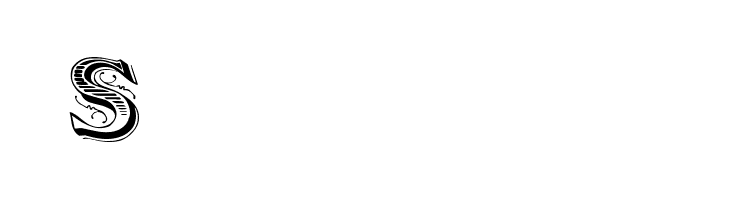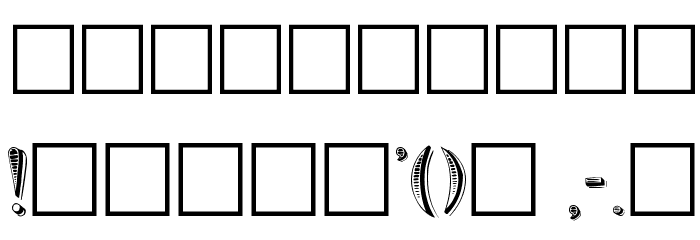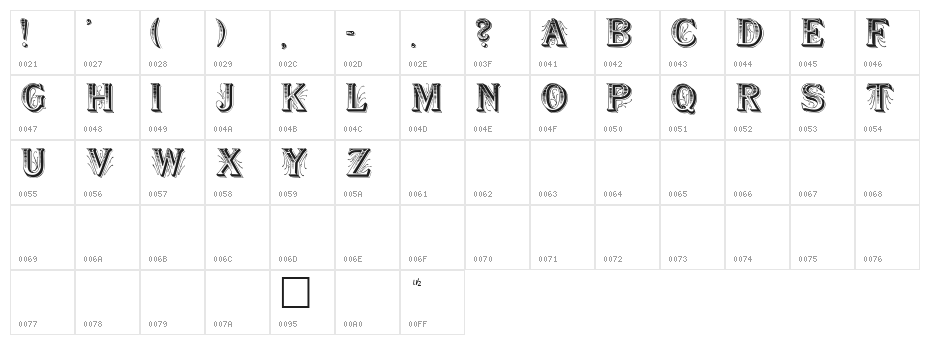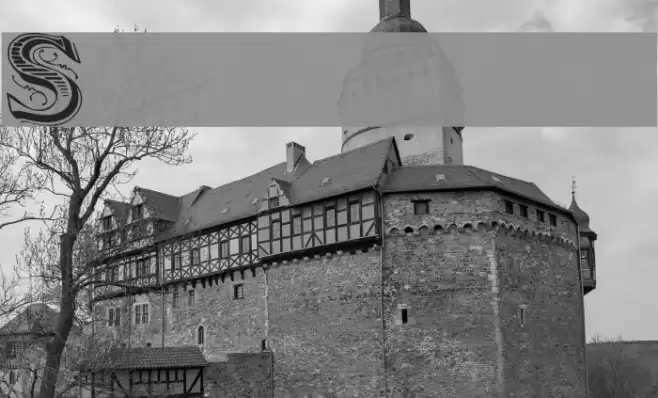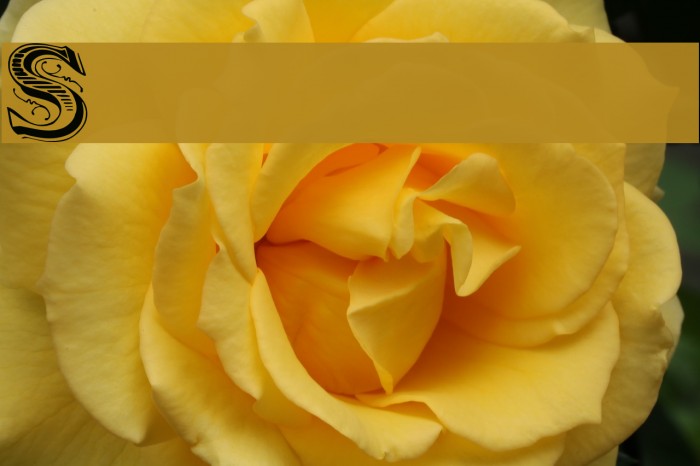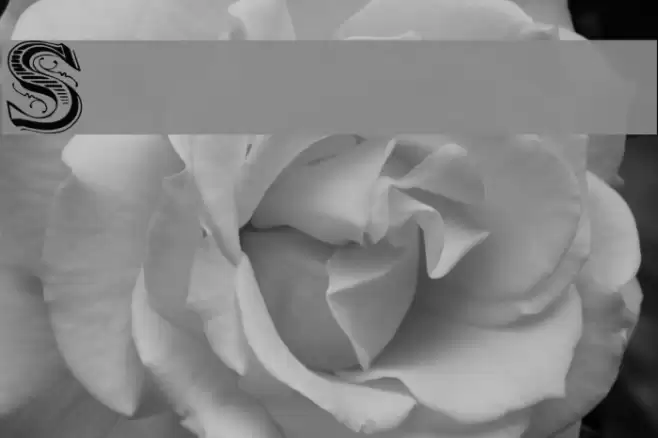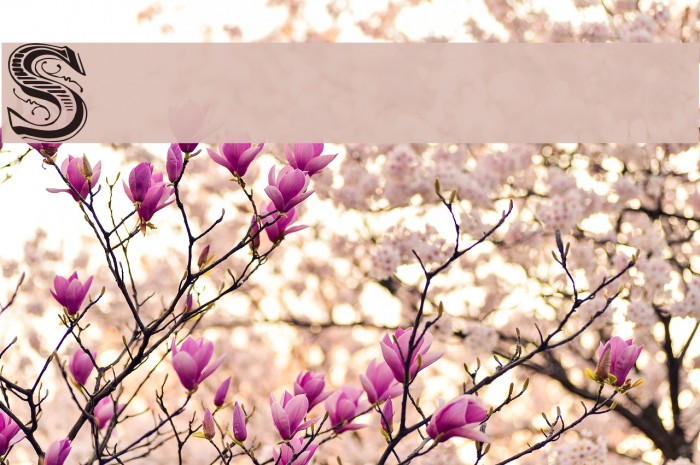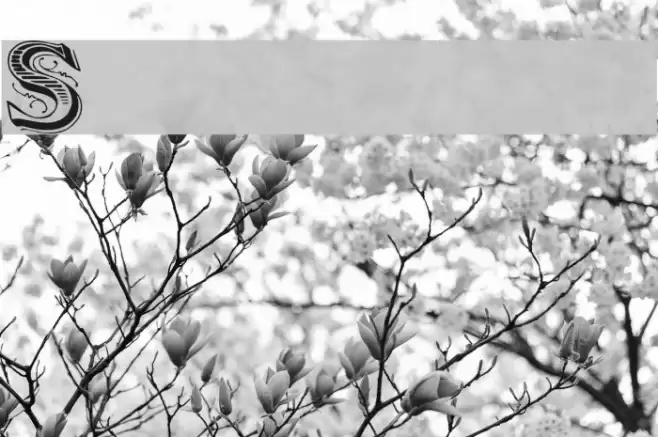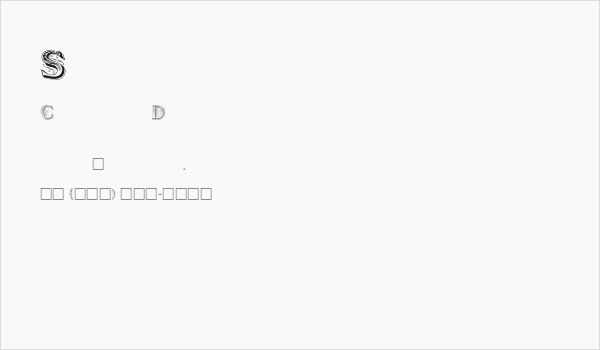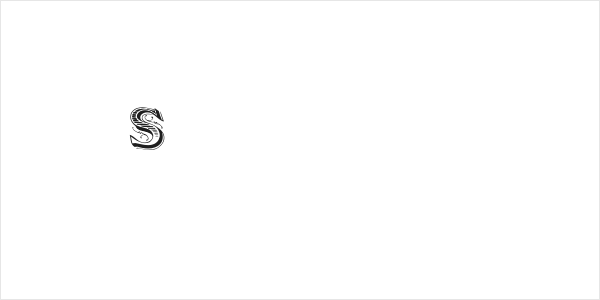
Showboat Font
Showboat Description
This font features an elaborate and decorative style, characterized by intricate detailing and ornamental elements that give it a vintage and theatrical appearance. The uppercase letters are bold and heavily stylized, with each character adorned with unique embellishments that add a sense of grandeur and flair. The font's design is reminiscent of classic circus or carnival posters, making it ideal for projects that require a touch of nostalgia and spectacle. Its distinct and eye-catching nature makes it suitable for headlines and display purposes where a dramatic impact is desired.
| Proposed Projects | Ideal for vintage-themed posters, circus or carnival event flyers, theatrical playbills, and any design needing a dramatic, nostalgic flair. |